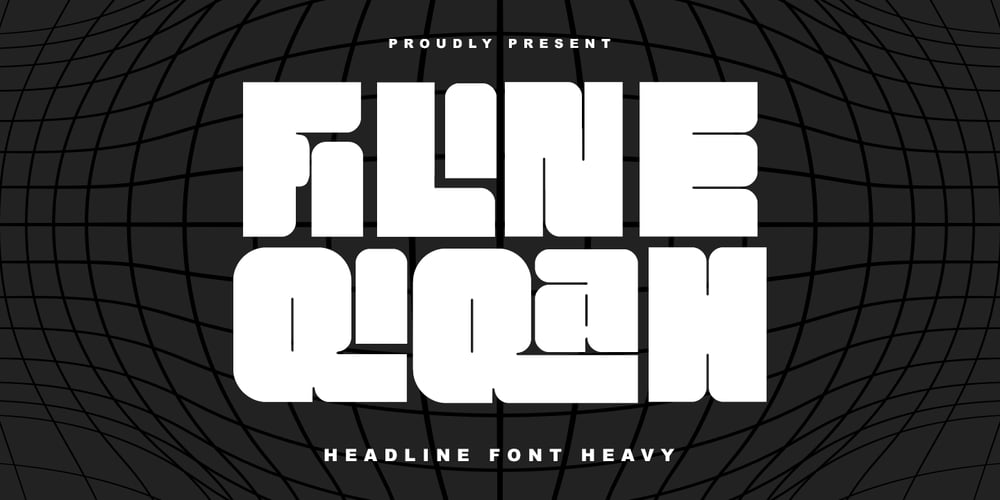
MC Filine Qiqah
MC Filine Qiqah font
MC Filine Qiqah Font Family was designed by Gilang Maulana and published by Maulana Creative. MC Filine Qiqah contains 1 styles and family package options. Filine Qiqah heavy sans serif font. With bold stroke, fun character with a bit of ligatures. To give you an extra creative work. Filine Qiqah heavy sans serif font support multilingual more than 100+ language. This font is good for logo design, Social media, Movie Titles, Books Titles, a short text even a long text letter and good for your secondary text font with script. Make a stunning work with Filine Qiqah heavy sans serif font. Cheers, Maulana Creative